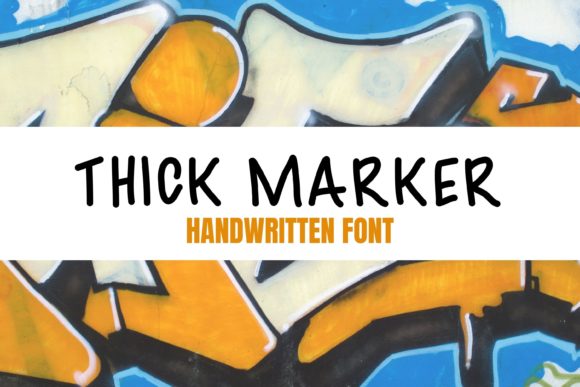
Jump into a world of creativity and charm with Thick Marker Font — the whimsical handwritten font that transforms your designs into masterpieces. Guided by the spirited hand of Sweet Dandy Designs, this font family dances across your screen, adding a touch of playful elegance to every letter.
Unleash your inner artist and let Thick Marker's unique script strokes ignite your imagination. Whether you're crafting eye-catching t-shirts, designing mugs that spark joy, or creating heartfelt greeting cards, this font is your trusty companion. Its effortless flow and charming curves breathe life into your creations, turning them into delightful expressions of your style.
Step into the spotlight with presentations that captivate your audience. Thick Marker's bold presence commands attention, making your PowerPoint slides stand out from the mundane. Its vibrant strokes add a touch of personality, leaving a lasting impression on your viewers. Engage, inspire, and entertain with every click, turning your presentations into unforgettable experiences.
There's no limit to the creative possibilities that await you with Thick Marker Font. Dive into the world of invitations that exude warmth and charm, or design posters that burst with energy and color. Let this font become your creative muse, guiding you towards designs that resonate with your audience and leave a lasting impact.
Don't settle for ordinary when you can embrace the extraordinary. Choose Thick Marker Font and embark on a creative journey where imagination knows no bounds. Its playful spirit and captivating charm will transform your designs, leaving you with a collection of cherished creations that reflect your unique style.